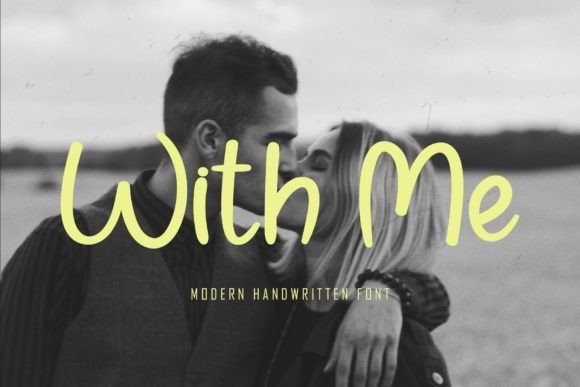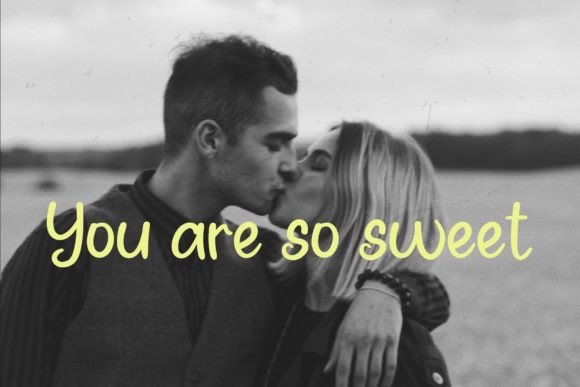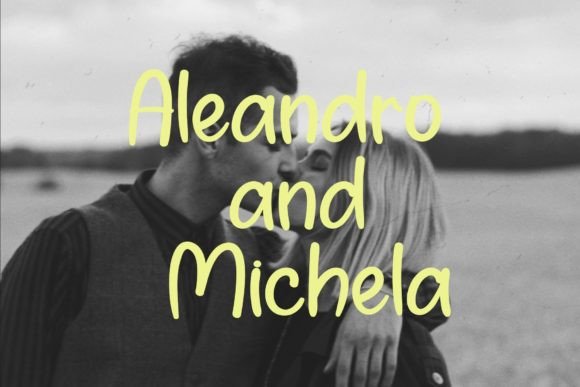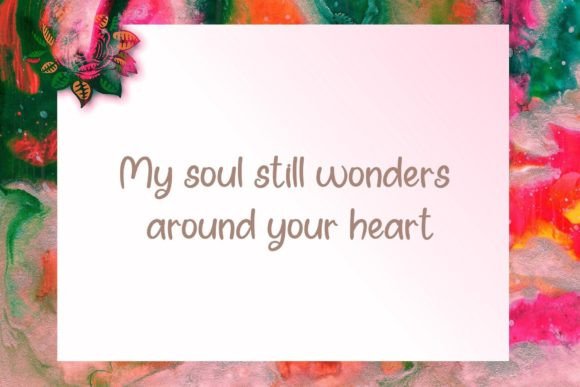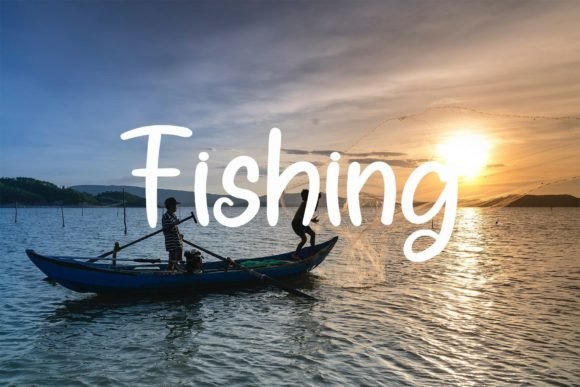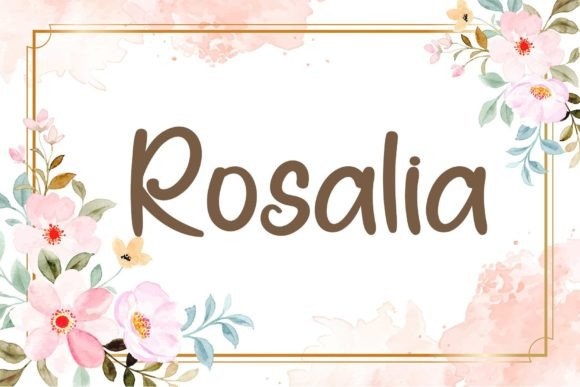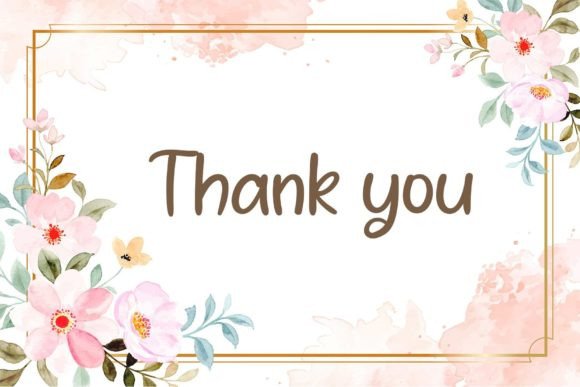
With Me Font
About With Me Font
With Me is an enchanting handwritten font that adds a touch of romance to your creative projects. Its elegant and flowing letterforms make it a versatile choice suitable for a wide range of applications, from greeting cards to headlines and beyond.
The font’s enchanting style brings a romantic and heartfelt vibe to your designs. Its versatility allows you to use it in various contexts, enhancing the visual appeal of your projects. Whether you’re crafting intimate greeting cards, designing captivating headlines, or working on any other creative endeavor, With Me adds a romantic and sophisticated touch to your work.
With Me’s wide spectrum of applications makes it a valuable asset in your font collection. Its ability to convey emotions and create a romantic atmosphere makes it perfect for projects that aim to evoke feelings of love, warmth, and intimacy. The font’s handwritten charm adds authenticity to your text, creating a personal connection with the audience.
Incorporating With Me into your designs not only adds a romantic feel but also communicates your attention to detail and dedication to creating visually appealing content. Its enchanting handwritten style enhances the beauty of your projects, making them more captivating and engaging. By using With Me, you’re selecting a font that elevates the emotional impact of your designs and creates a memorable experience for your audience.
So, whether you’re designing heartfelt greeting cards, crafting romantic headlines, developing elegant invitations, or working on any other creative project, let With Me be your font of choice. Its enchanting and romantic aura enriches your designs, infusing them with a sense of love and intimacy. Embrace the romance of With Me and watch your projects come to life with a touch of heartfelt elegance.